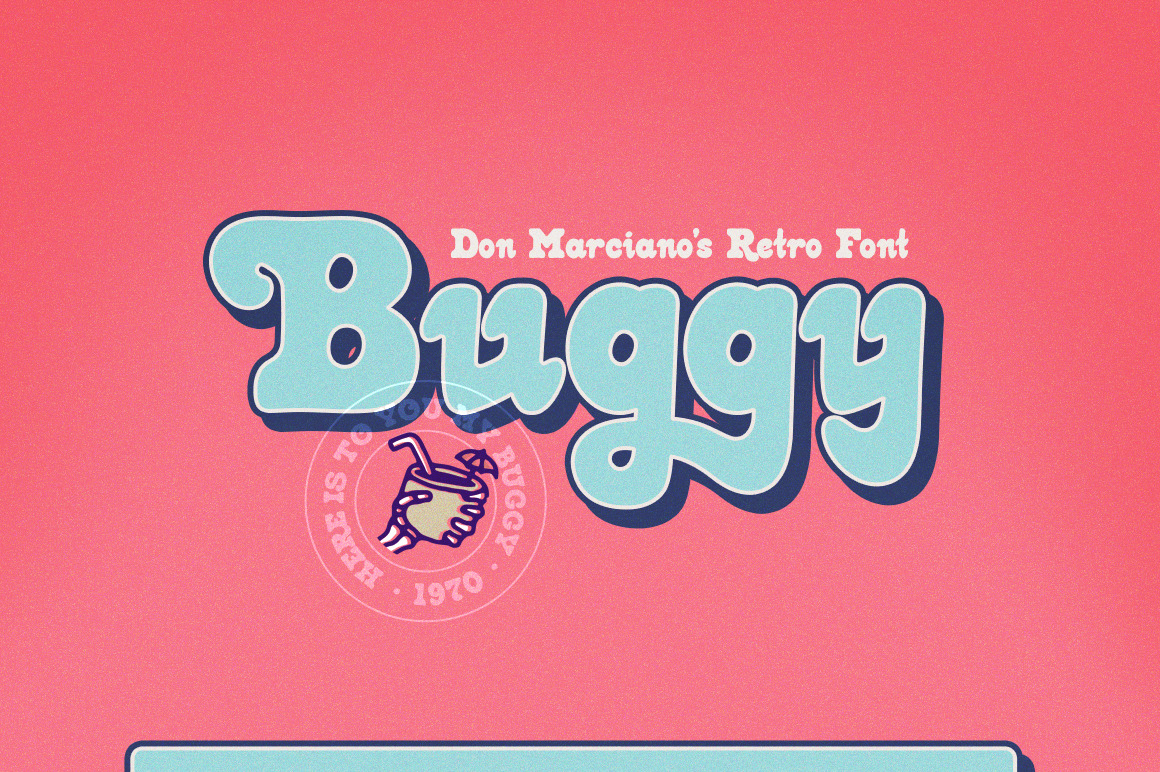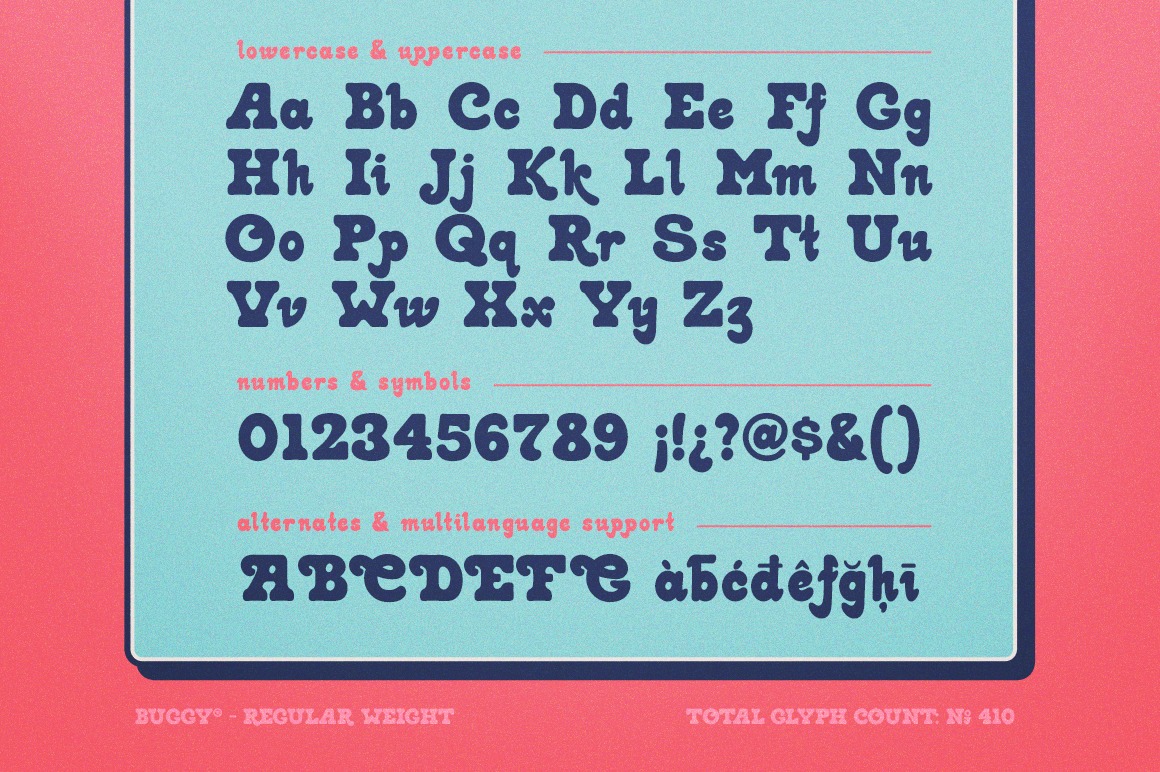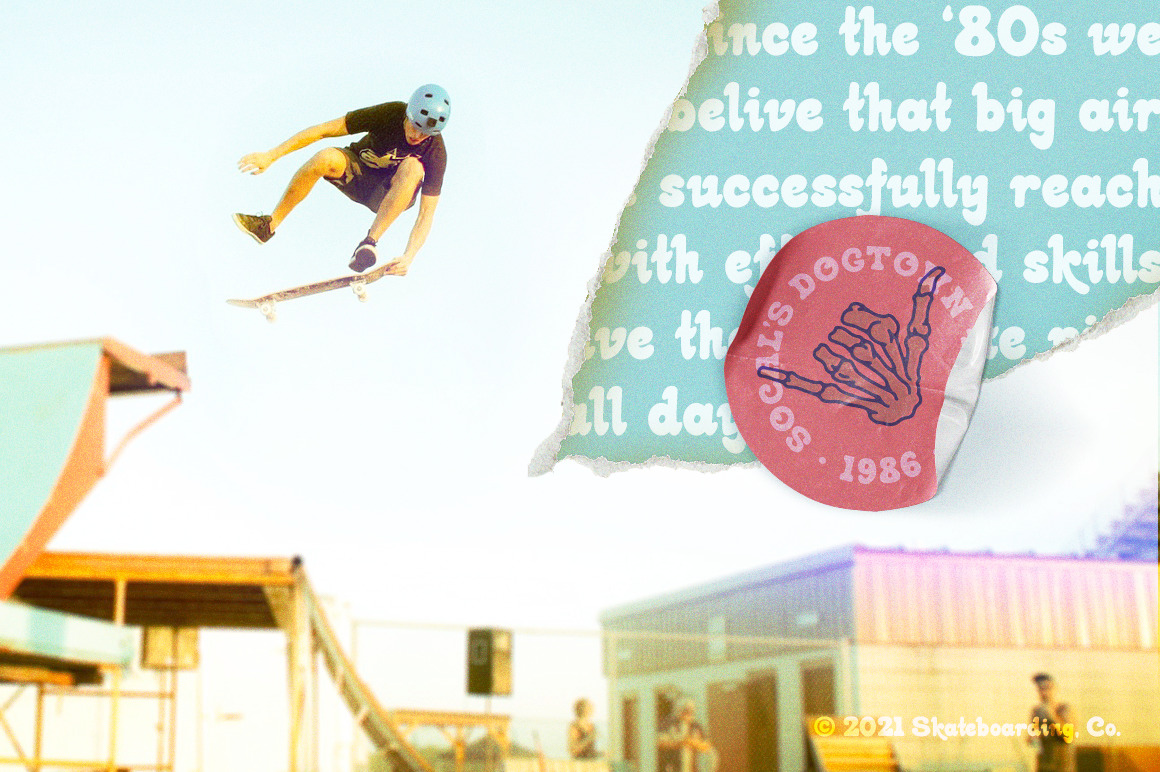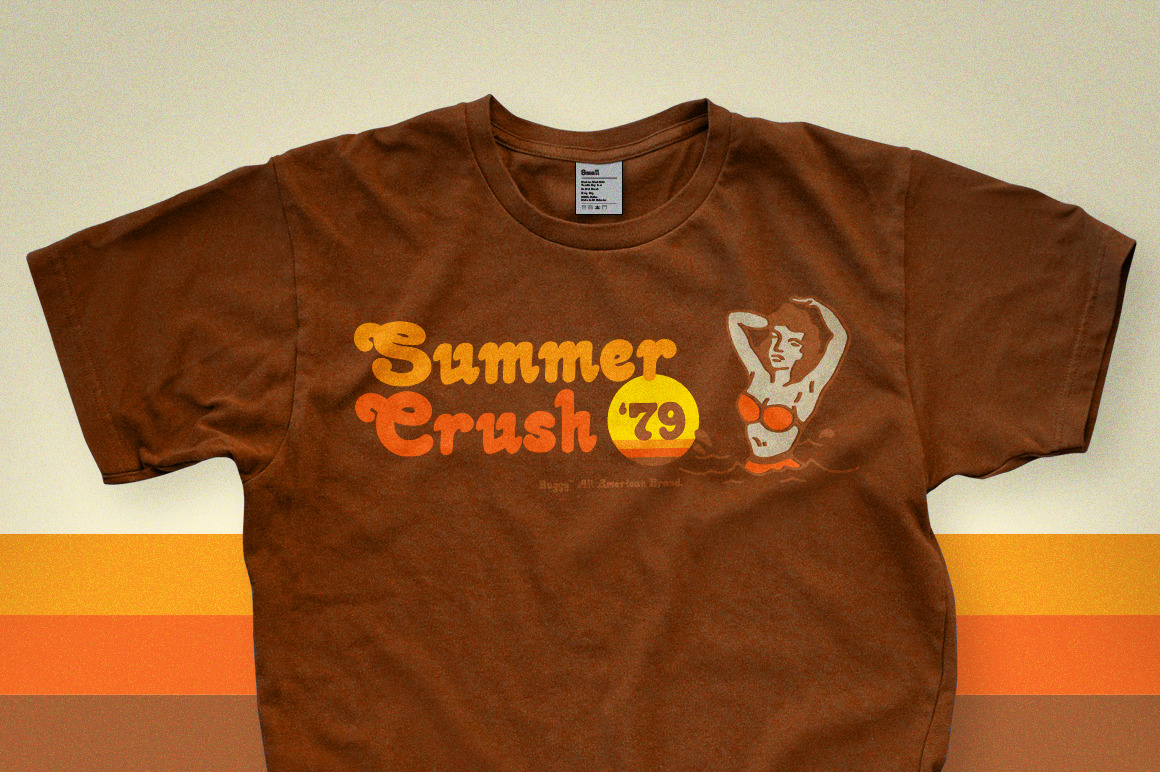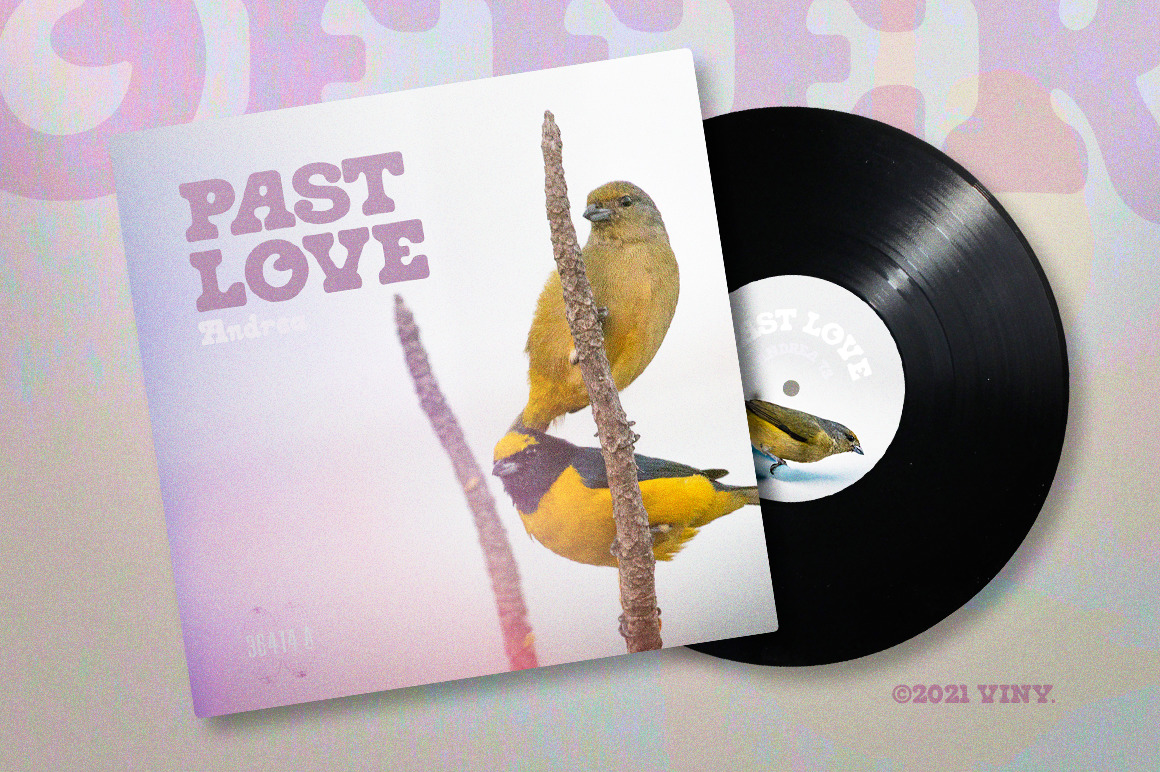
Buggy Retro Font
Buggy is a bold retro typeface inspired by a 1960s to 1980s period of design style with lowercase and uppercase (which includes uppercase alternates) characters alphabet, and all the standard punctuation, as well as international characters for multi-language support, features a strong serif flairs combine with long curve handcrafted corners, and tight spacing between glyphs will help complement and define its look and feel to any design.